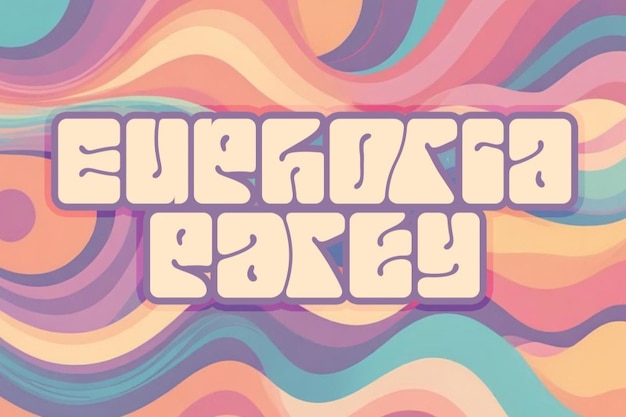
Euphoria Party Font
Euphoria Party is a vibrant font that embodies the spirit of the 60s with its groovy, psychedelic flair. Featuring bold, swirling letters and eye-catching curves, it captures the essence of retro design and carefree celebration. Perfect for music festival posters, party invitations, or any project seeking a burst of nostalgia, Euphoria Party invites you to dance through the colors of the past.